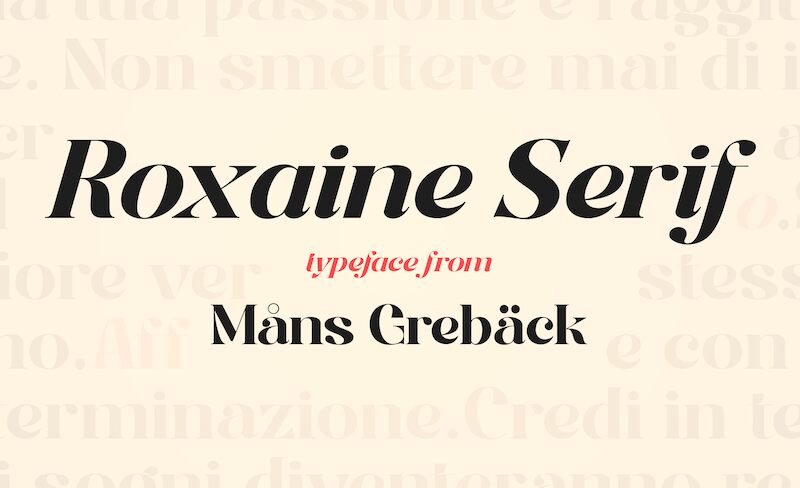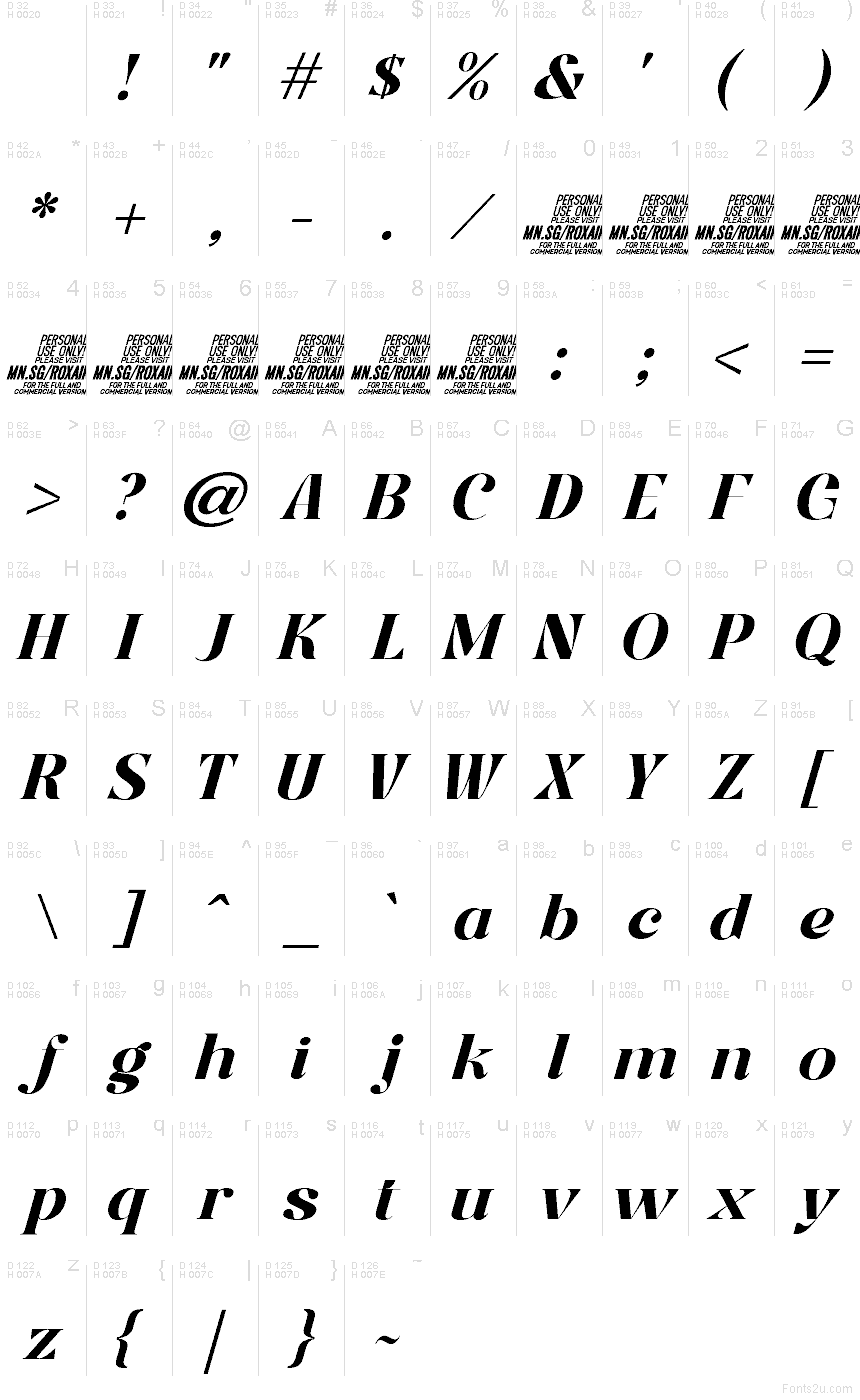
Roxaine Serif PERSONAL USE Italic
Roxaine Serif Italic font by Mans Greback is a free italic serif typeface that pours drama and refinement into every curve. Part of the Roxaine Serif family, its inky strokes swing forward with a confident slant, while the sculpted serifs and tight rhythm give the letters a polished, couture feel. The thick-and-thin flow feels almost calligraphic, adding a sense of motion and warmth to otherwise formal layouts.
This free font shines on editorial titles, luxury logos, perfume or cosmetics packaging, book covers, wedding stationery, and bold typographic posters. Using Roxaine Serif Italic at larger sizes lets the sharp edges and sweeping forms do the talking; pair it with a clean geometric sans for body text to keep the overall look crisp, readable, and upscale.